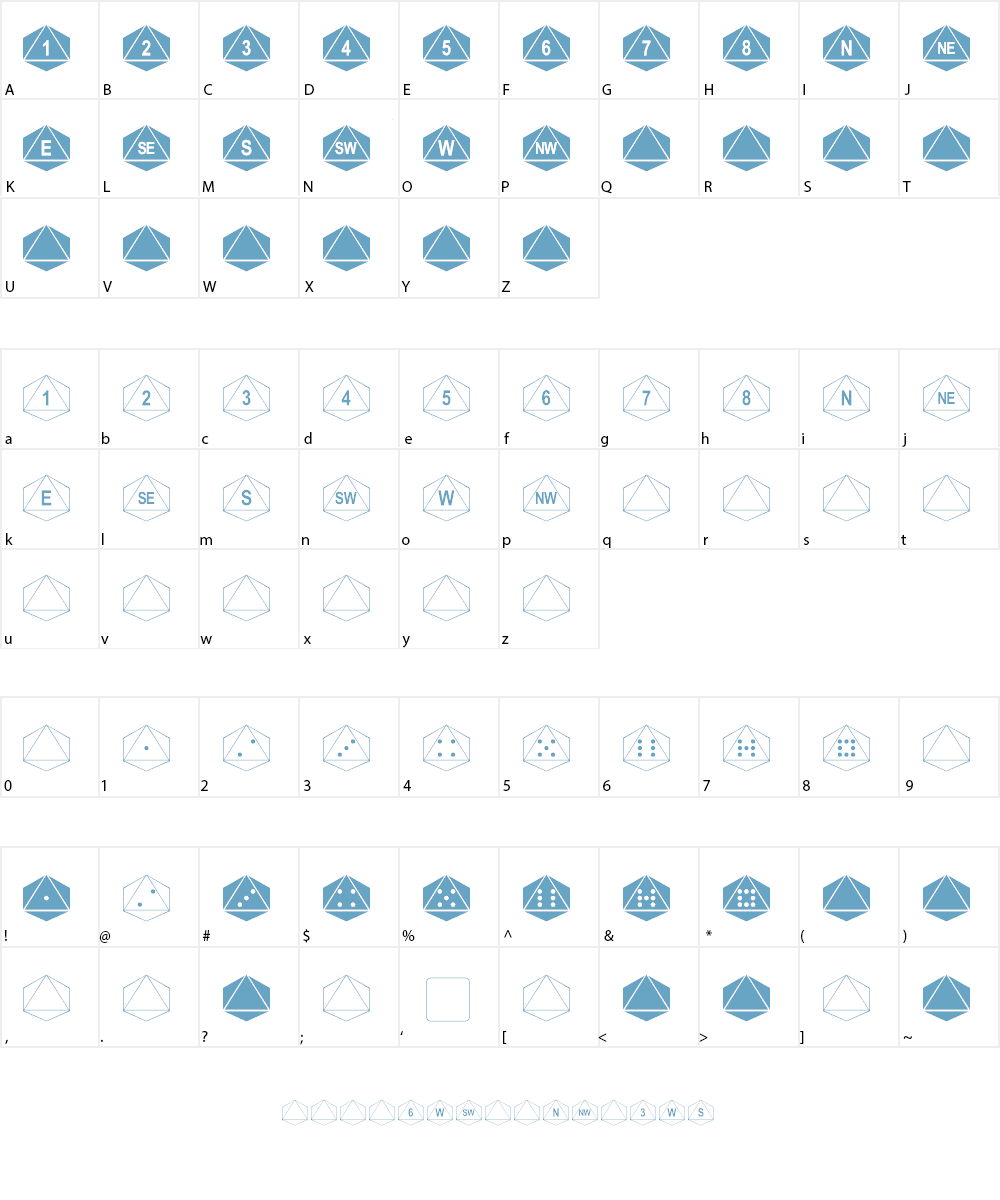
DPoly is a collection of ‘game dings’ fonts family based on the common dice in role-playing games. Includes Four-Sider, Six-Sider, Eight-Sider, Ten-Sider, Twelve-Sider, and Twenty-Sider types. Each font has ‘white’ and ‘black’ versions of the dice and numerous additions.
Now includes symbols from the FATE system (and replaces the separate dPoly Fate font.)